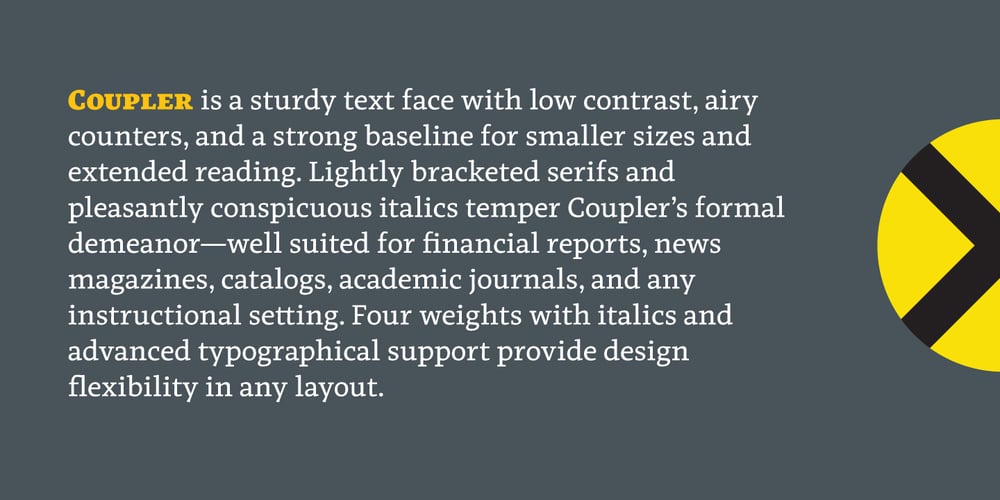
Coupler
Coupler font
Coupler Font Family was designed by Galen Lawson and published by District. Coupler contains 8 styles and family package options. Coupler is a sturdy text face with low contrast, airy counters, and a strong baseline for smaller sizes and extended reading. Lightly bracketed serifs and pleasantly conspicuous italics temper Coupler’s formal demeanor—well suited for financial reports, news magazines, catalogs, academic journals, and any instructional setting. Four weights with italics and advanced typographical support provide design flexibility in any layout.